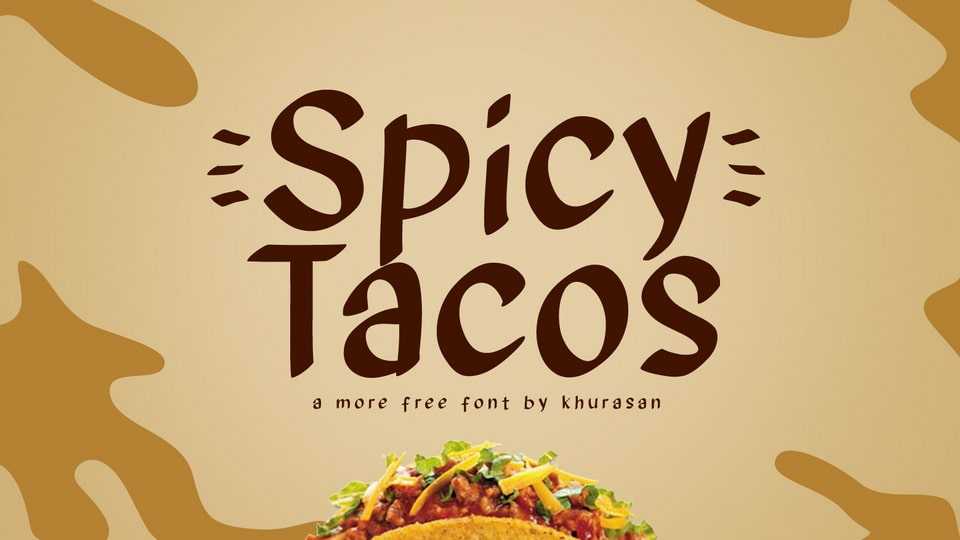
Download Spicy Tacos font, a delightful handwritten typeface that turns your designs into a canvas for playful and funny expression. Spicy Tacos font is perfect choice in spreading positivity and happiness through design.